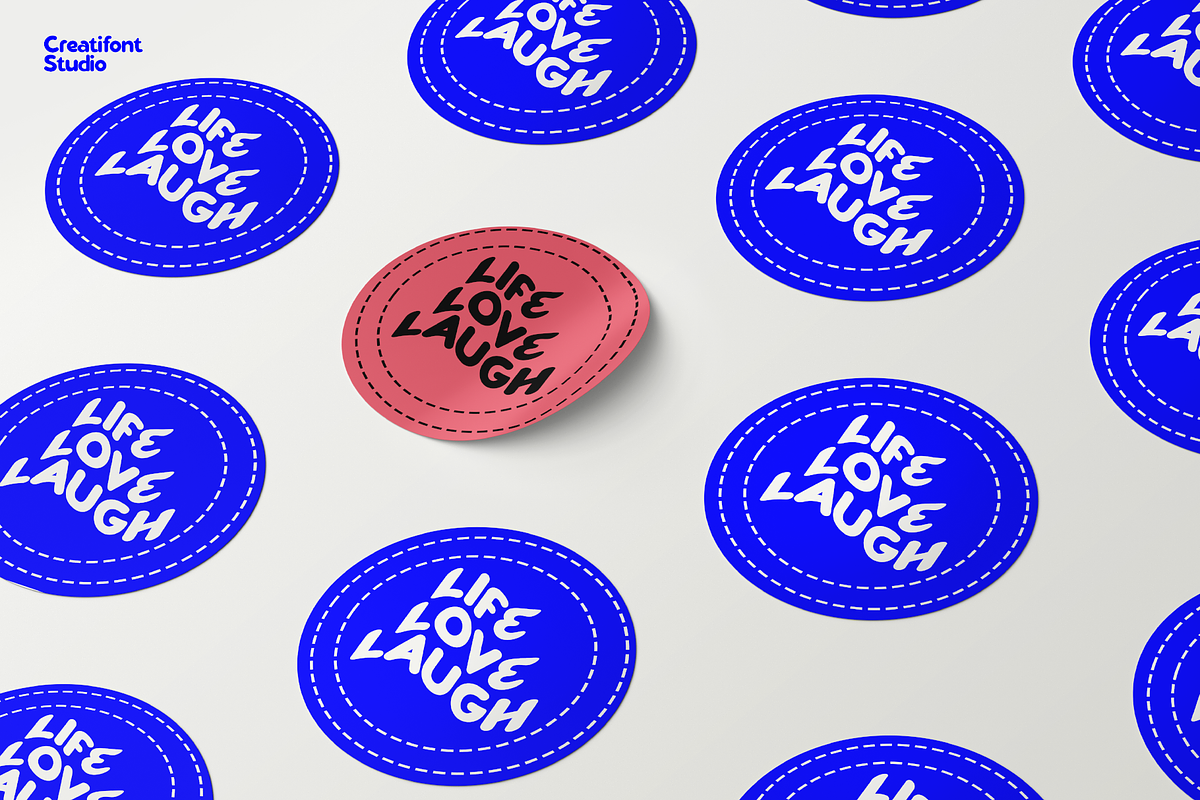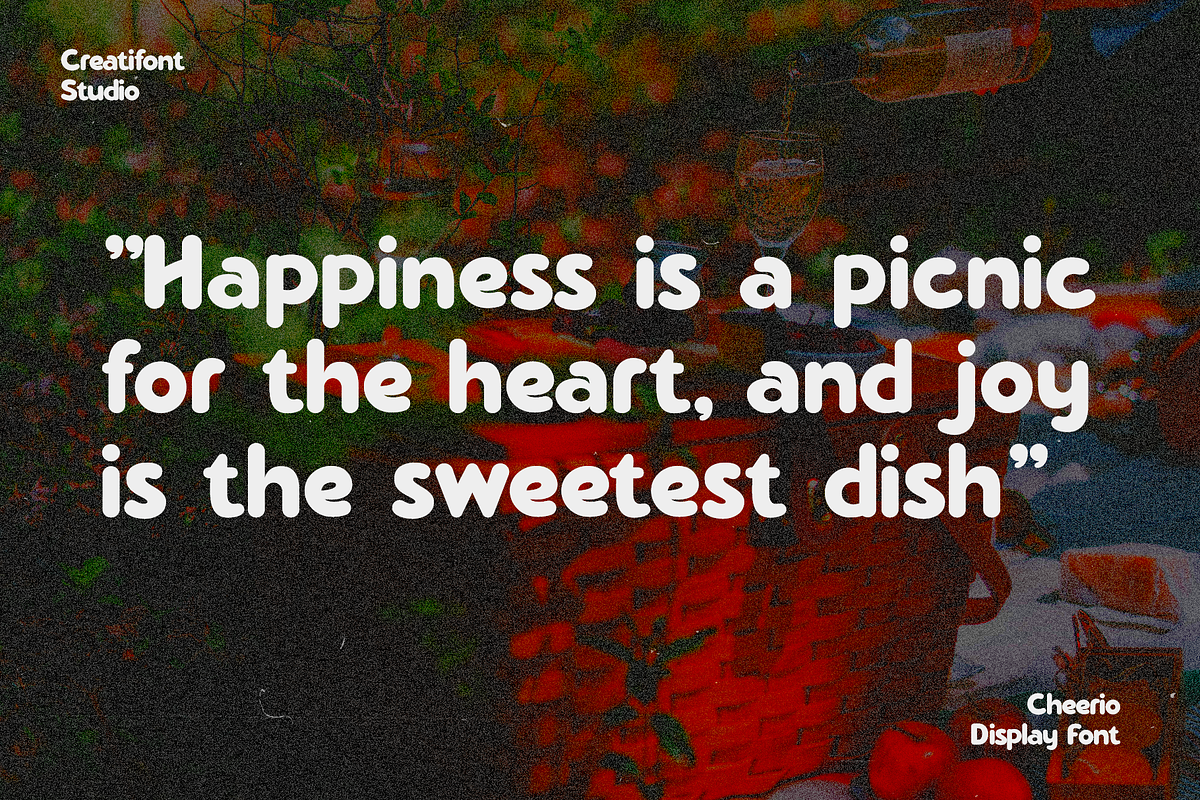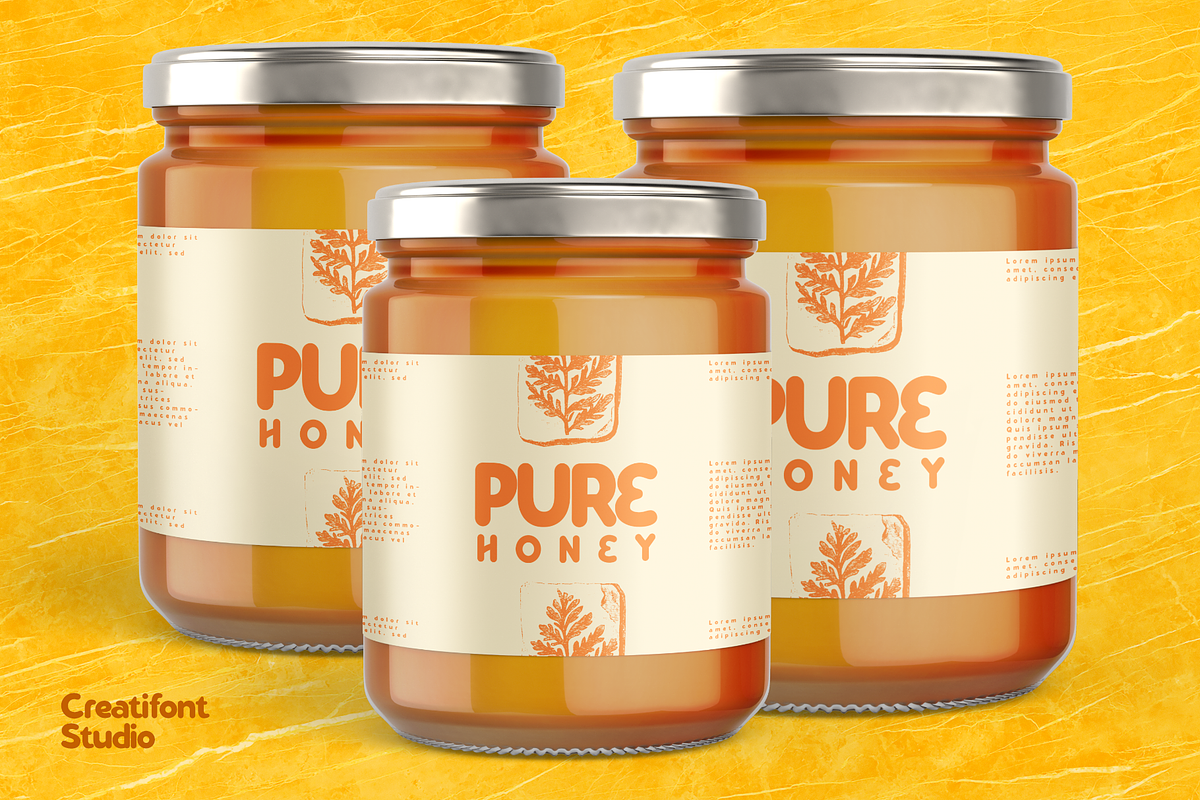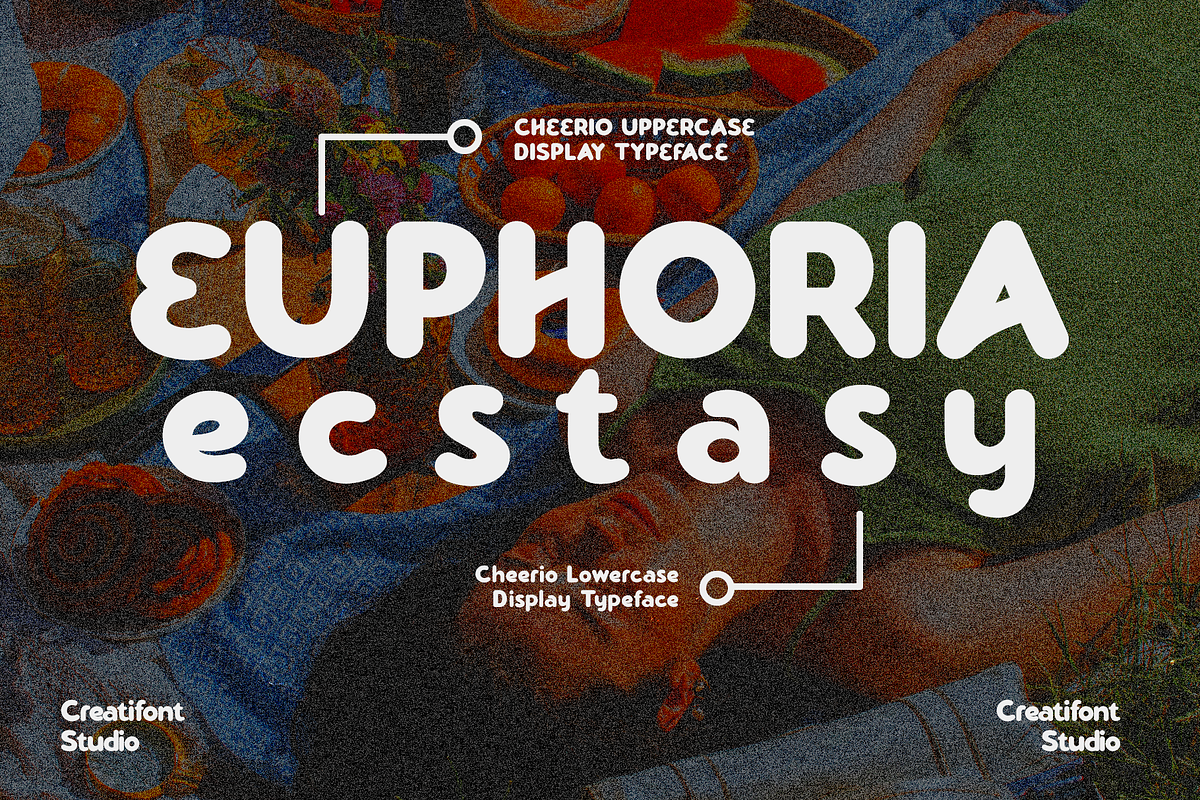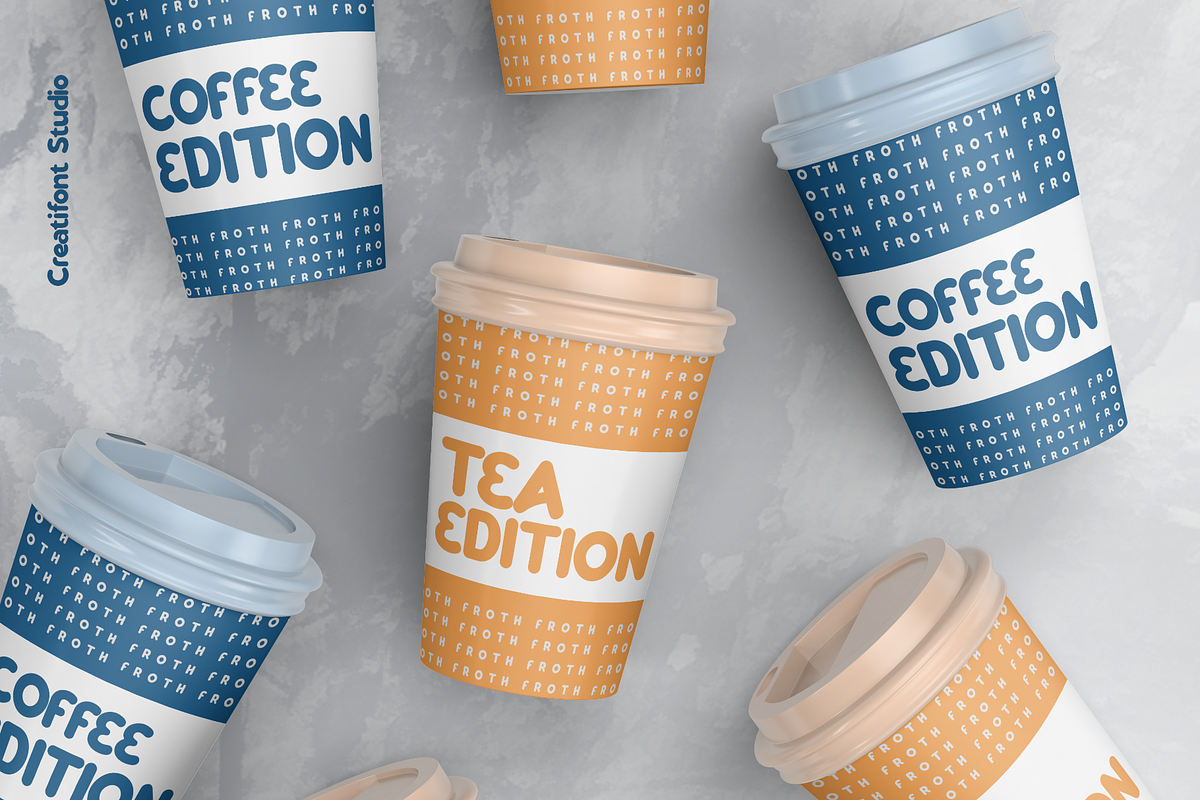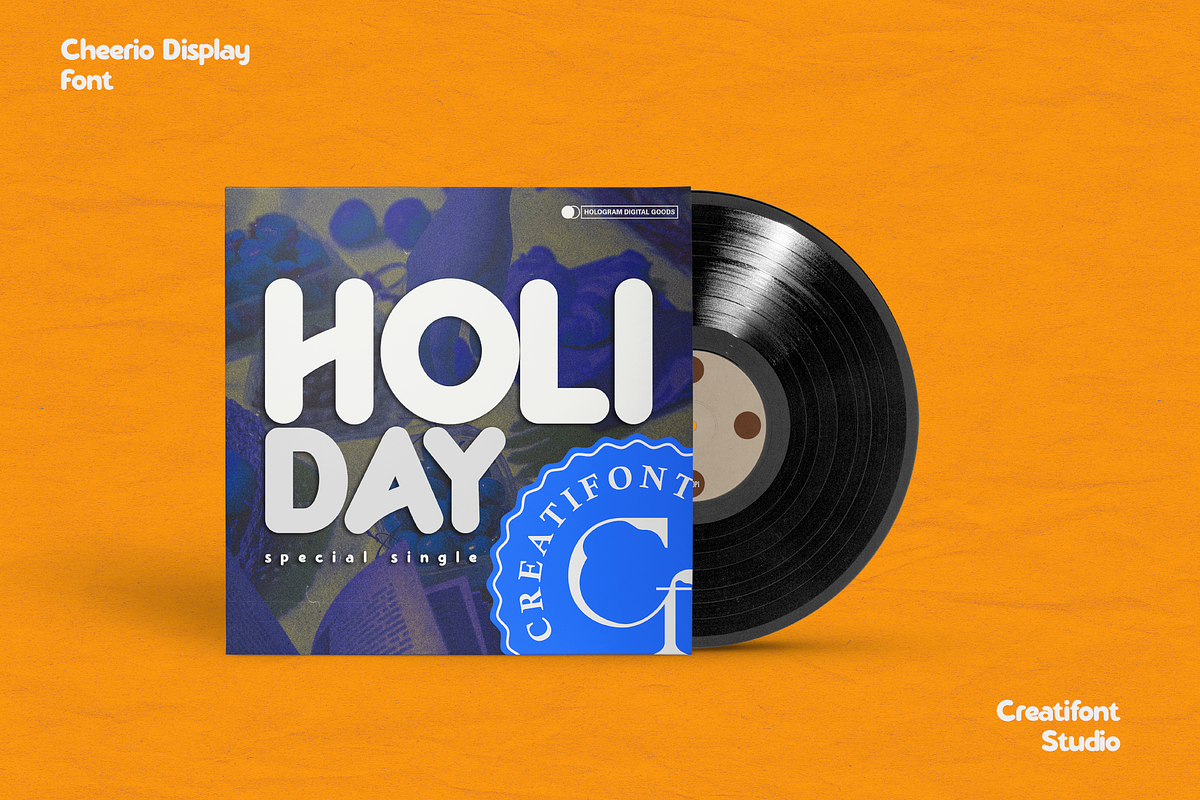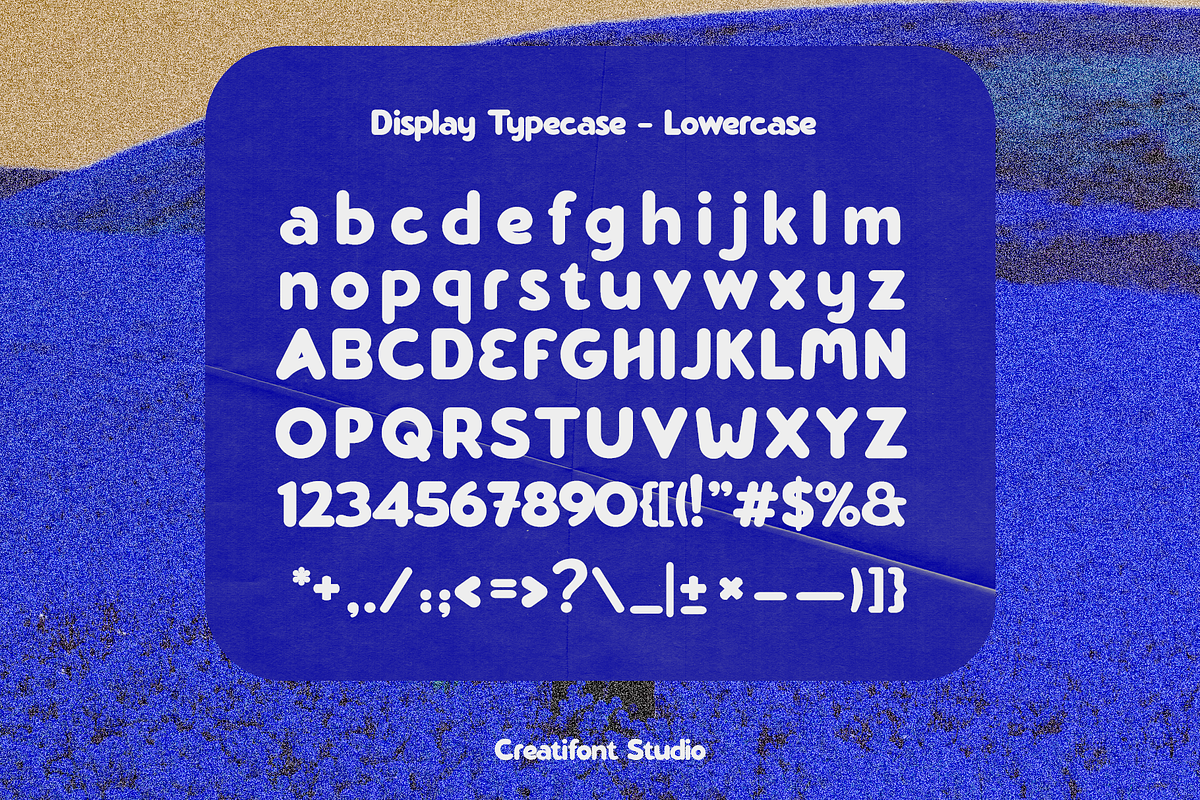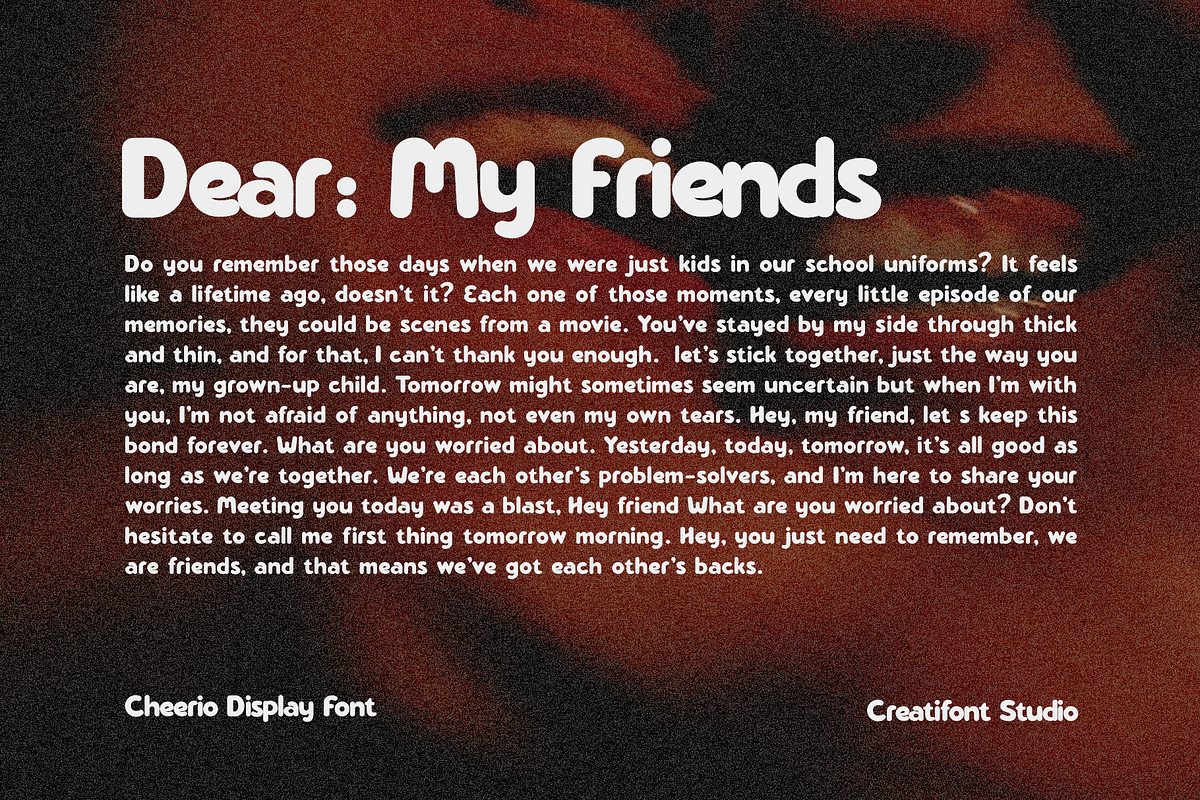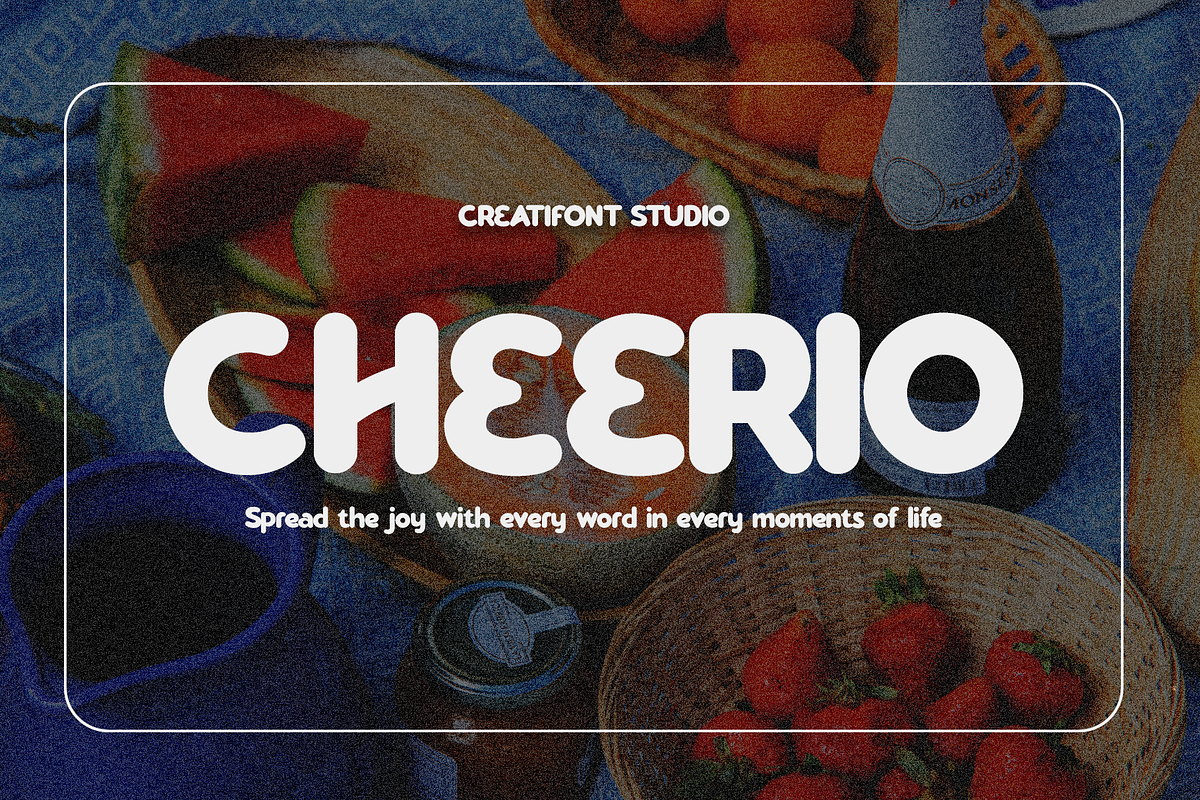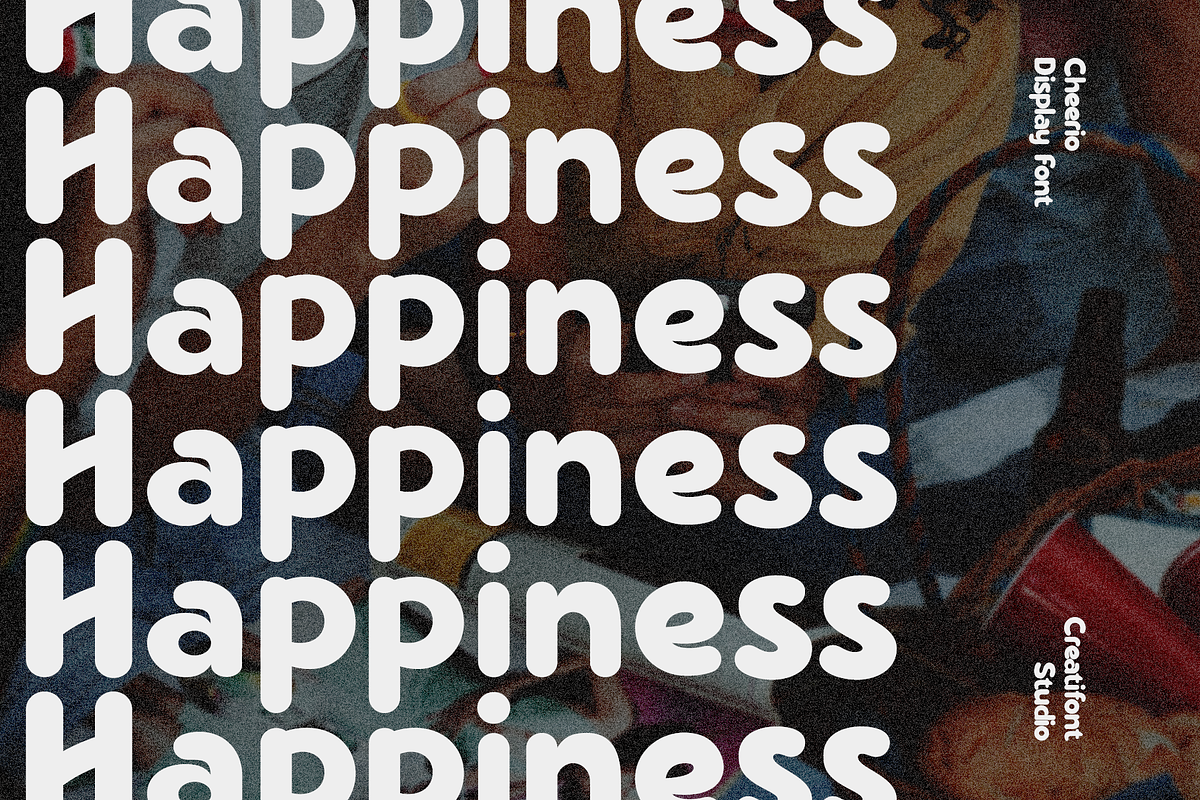
CF Cheerio - Playful Sans Serif
Cheerio - a sans serif font that's as playful as a marker pen in the hands of a creative mind. This whimsical typeface draws inspiration from the carefree strokes of markers, infusing your designs with a sense of fun and friendliness. Whether you're crafting greeting cards, posters, or any design that requires a touch of cheer, "Cheerio" is your go-to font for adding a dash of creativity and approachability to your work. It's the perfect choice for turning words into delightful visual expressions.